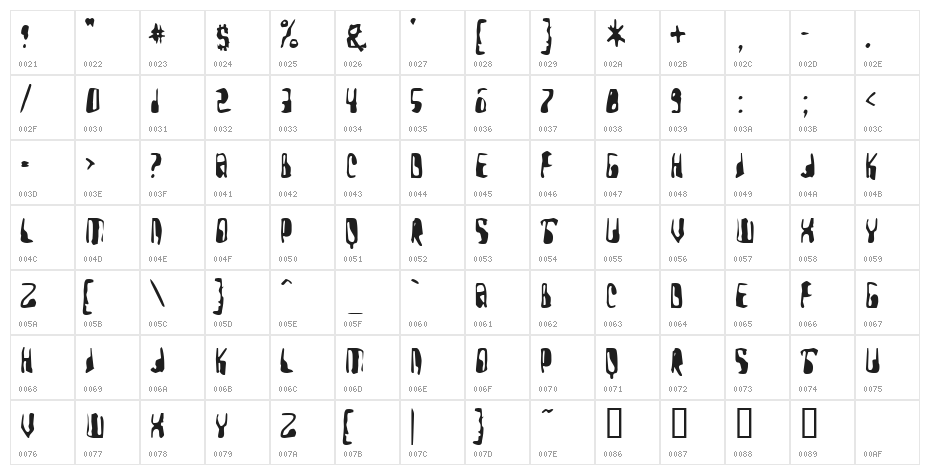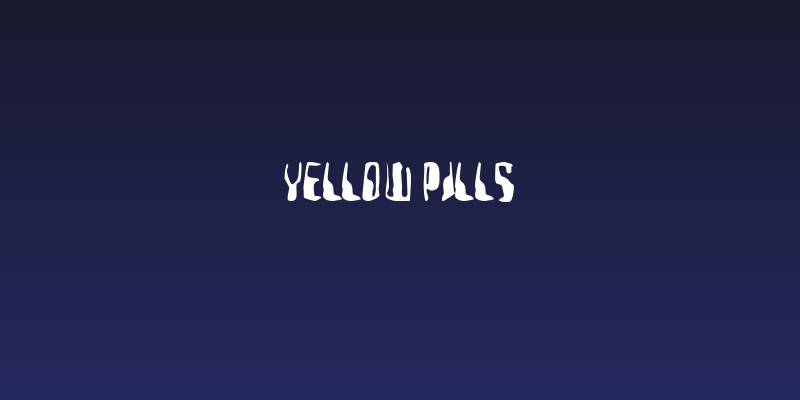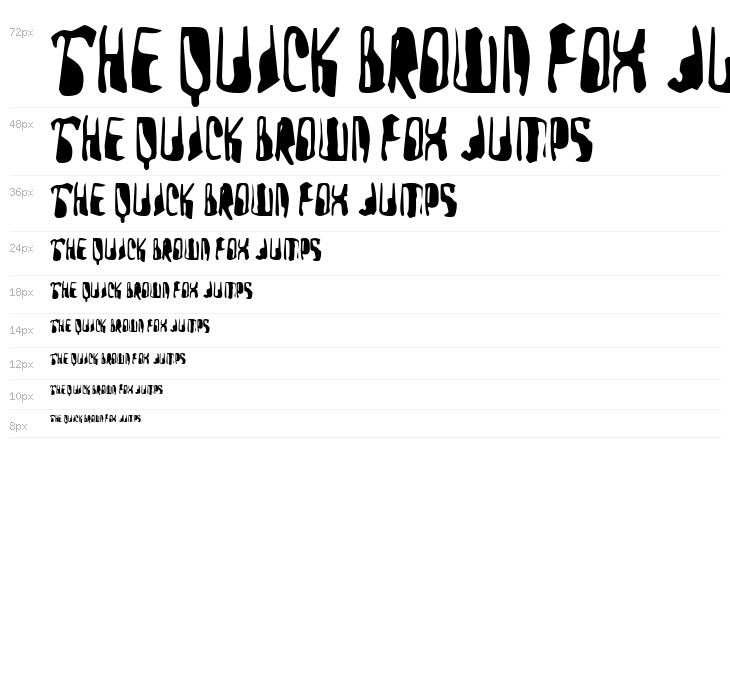
Yellow Pills Font
Yellow Pills Description
This font features a highly unique and artistic style, characterized by its irregular, organic shapes and bold presence. Each character appears to be hand-drawn, with varying thickness and playful curves that give it a dynamic and whimsical feel. The letters have a slightly distorted appearance, reminiscent of melted or dripping forms, which adds to its distinctive and creative look. This font is perfect for projects that aim to capture attention and convey a sense of fun and creativity. Its bold and expressive nature makes it ideal for artistic and unconventional designs.
Overall StyleArtistic, Whimsical
Proposed ProjectsIdeal for creative projects such as posters, album covers, and artistic branding.